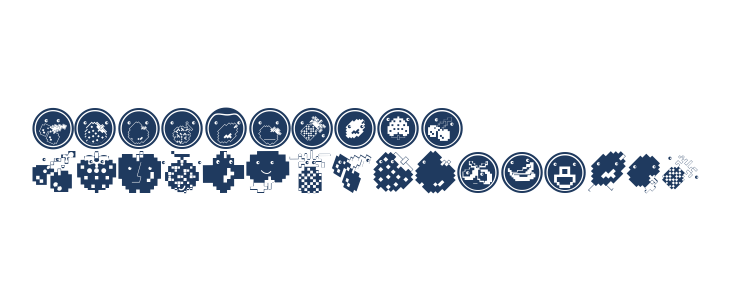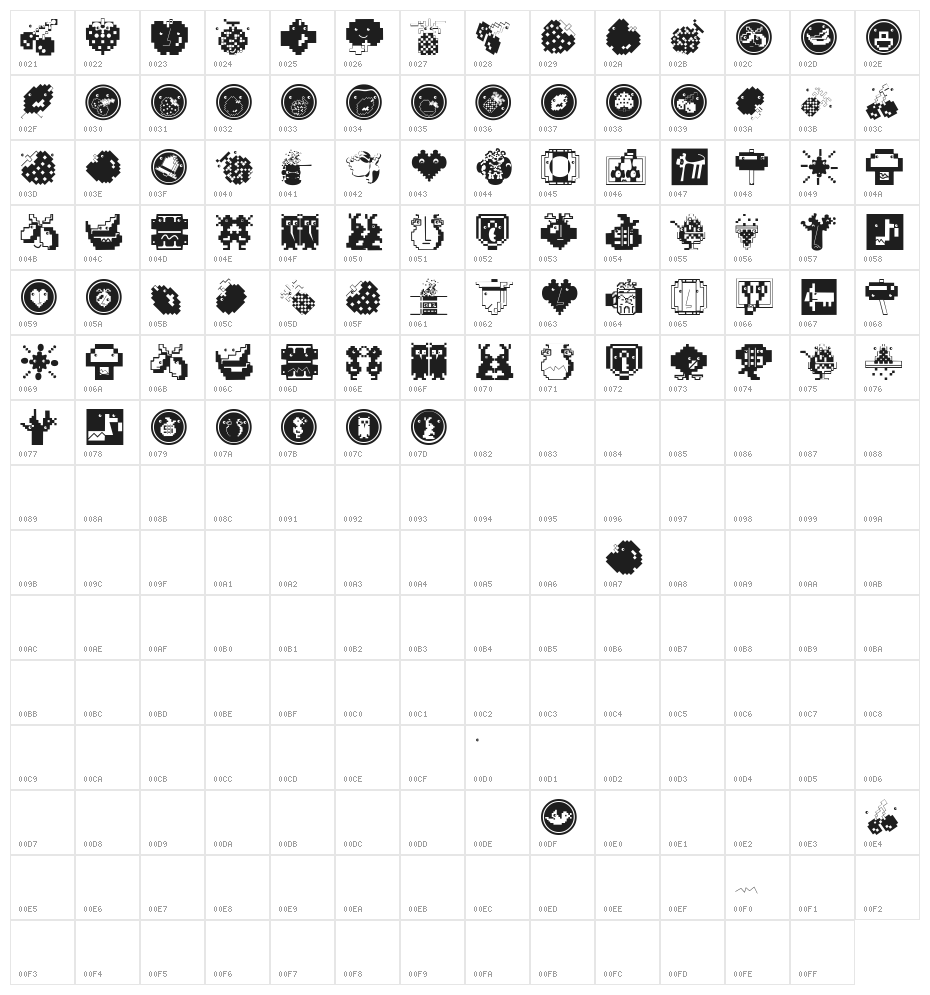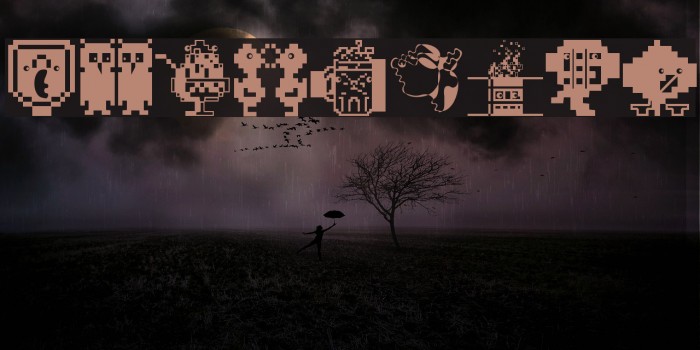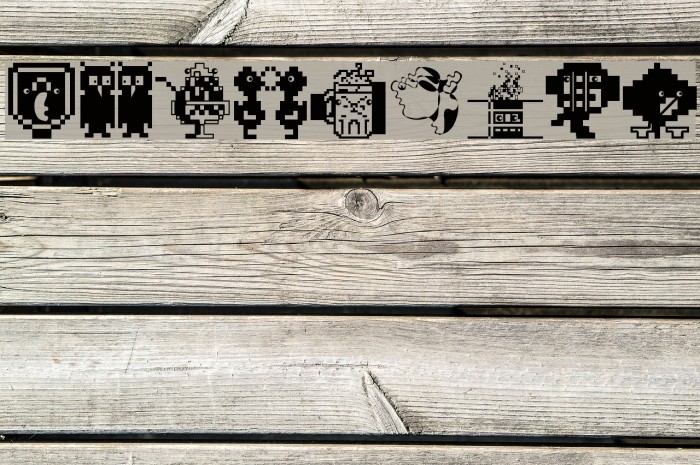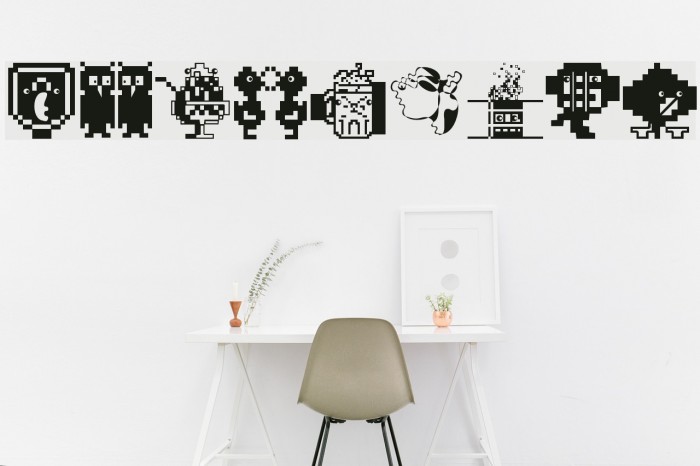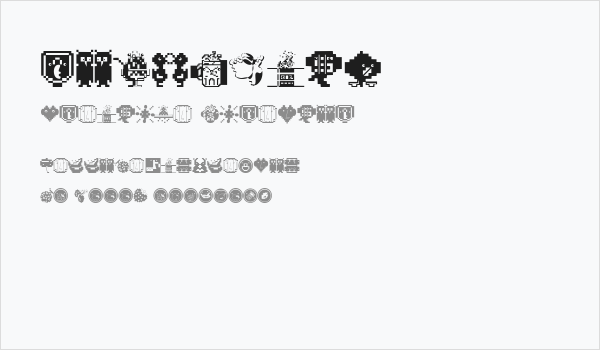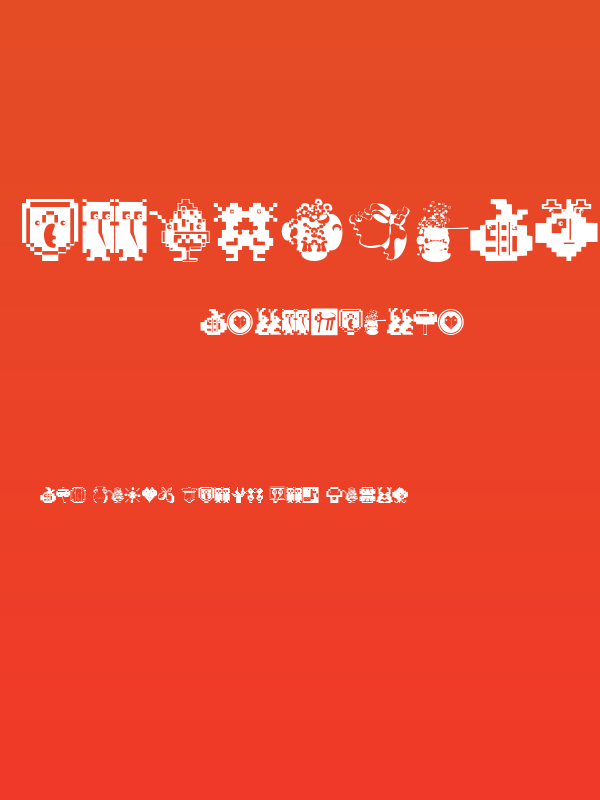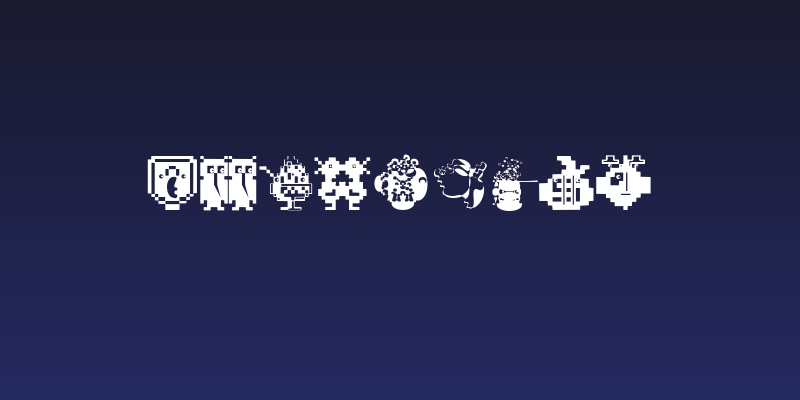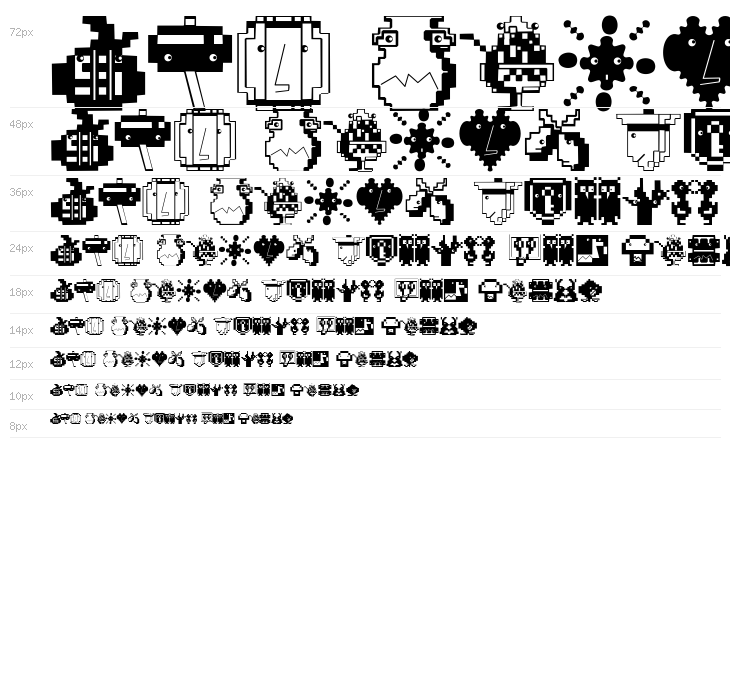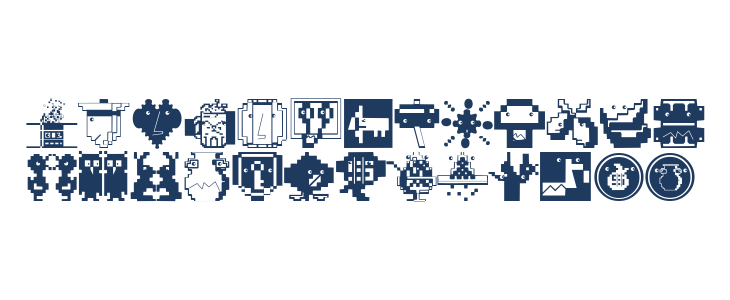
RoundBats Font
RoundBats Description
A playful and highly decorative dingbat font featuring pixel-art style illustrations of various objects, animals, and symbols. Each character is a unique, detailed icon with a retro, 8-bit aesthetic, rendered in solid black and white with strong outlines and geometric shapes.
| Overall Style | Decorative, Playful, Retro |
| Use Case | Icons, Decorative elements, Themed graphics |
| Proposed Projects | Children's books, game design, playful branding, event invitations, digital stickers, educational materials. |